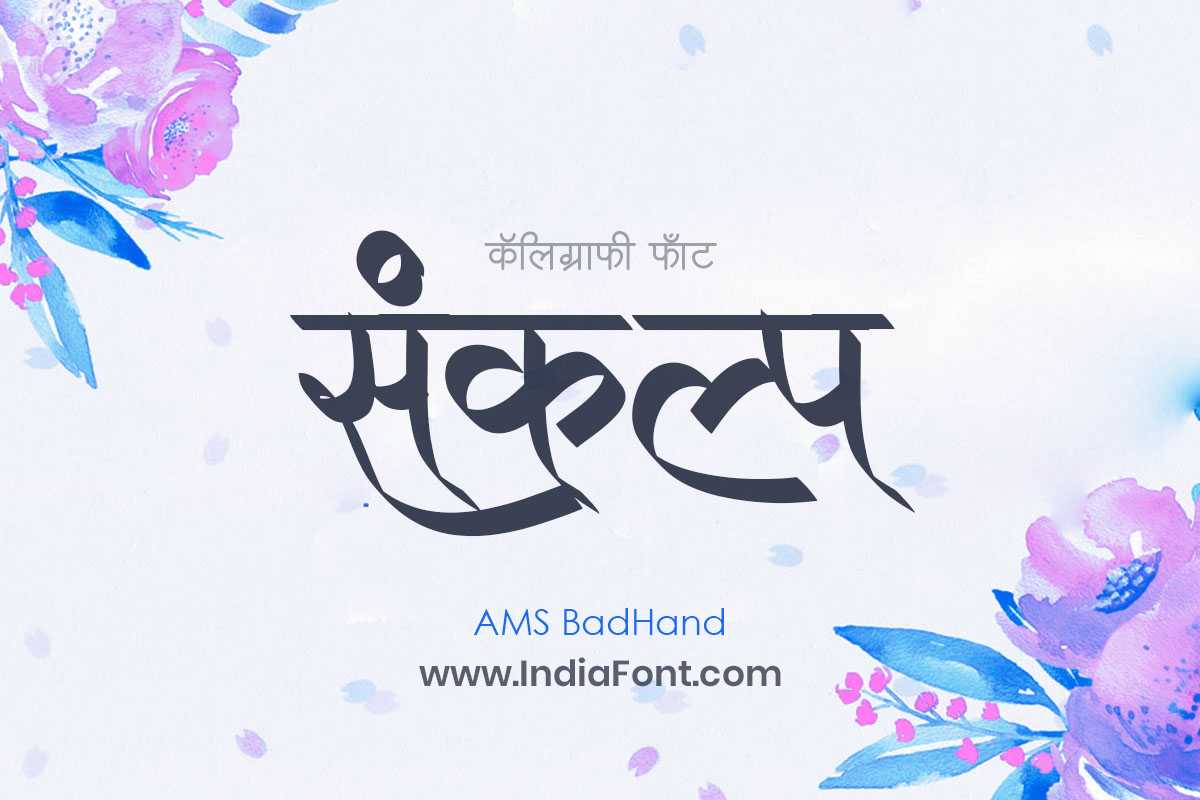
AMS BadHand
AMS BadHand is a unique calligraphy font that celebrates the beauty of imperfect handwriting. With its distinctively "bad handwriting" style, this font adds a playful and whimsical touch to your Hindi and Marathi projects.
About AMS BadHand Font
AMS BadHand is a unique calligraphy font that celebrates the beauty of imperfect handwriting. With its distinctively "bad handwriting" style, this font adds a playful and whimsical touch to your Hindi and Marathi projects. This calligraphy font combines elegance with functionality, making it perfect for various design applications.
AMS BadHand is a professionally crafted calligraphy typeface that brings clarity and style to your projects. Designed with attention to detail, it supports hindi and marathi characters flawlessly.
Whether you're working on wedding-materials, logos, posters, or other creative projects, AMS BadHand delivers consistent performance across both digital and print media. This carefully designed typeface ensures readability and visual appeal in all your design work.
About AMS BadHand Typography Style
AMS BadHand is a professionally crafted calligraphy font that exemplifies modern Hindi typography design. This free font is perfect for designers seeking professional branding and logo design projects.
Available in 1 weight and supporting hindi, marathi scripts, AMS BadHand offers exceptional versatility for both digital and print media. Whether you're working on wedding-materials, logos, posters, this carefully designed typeface ensures consistent quality and professional results across all your typography projects.